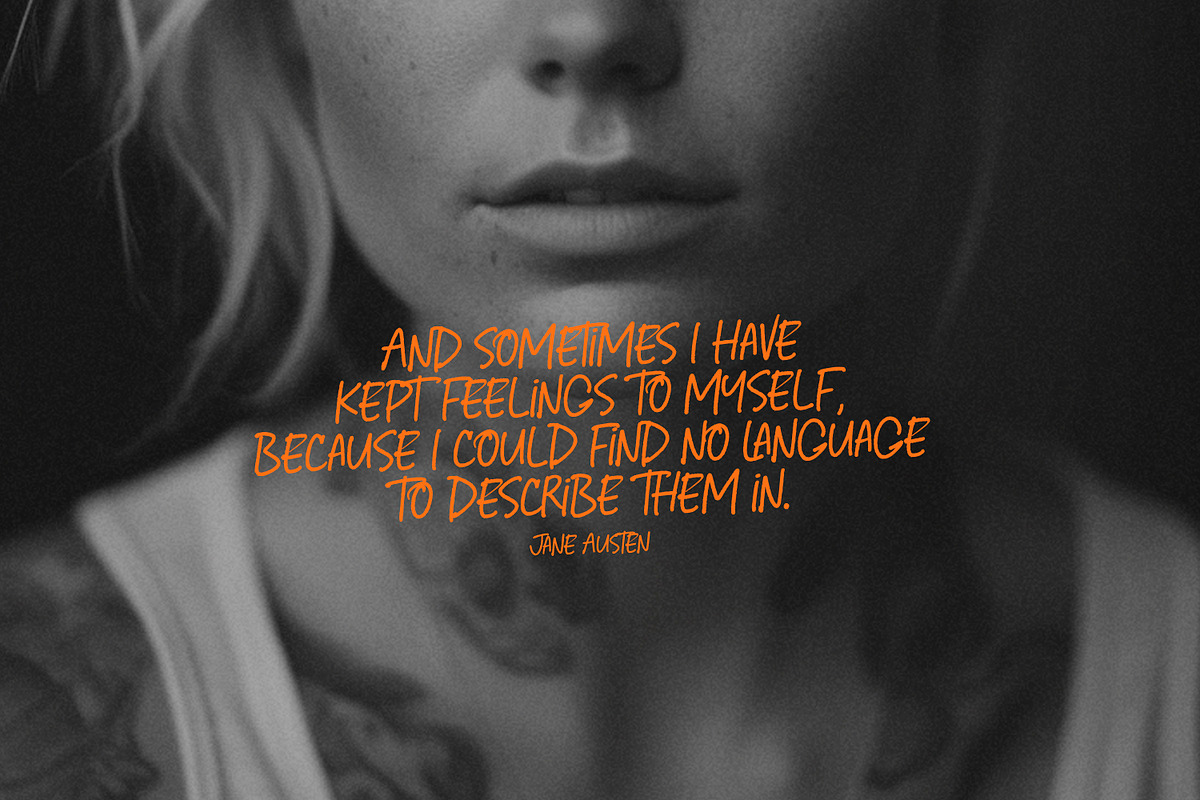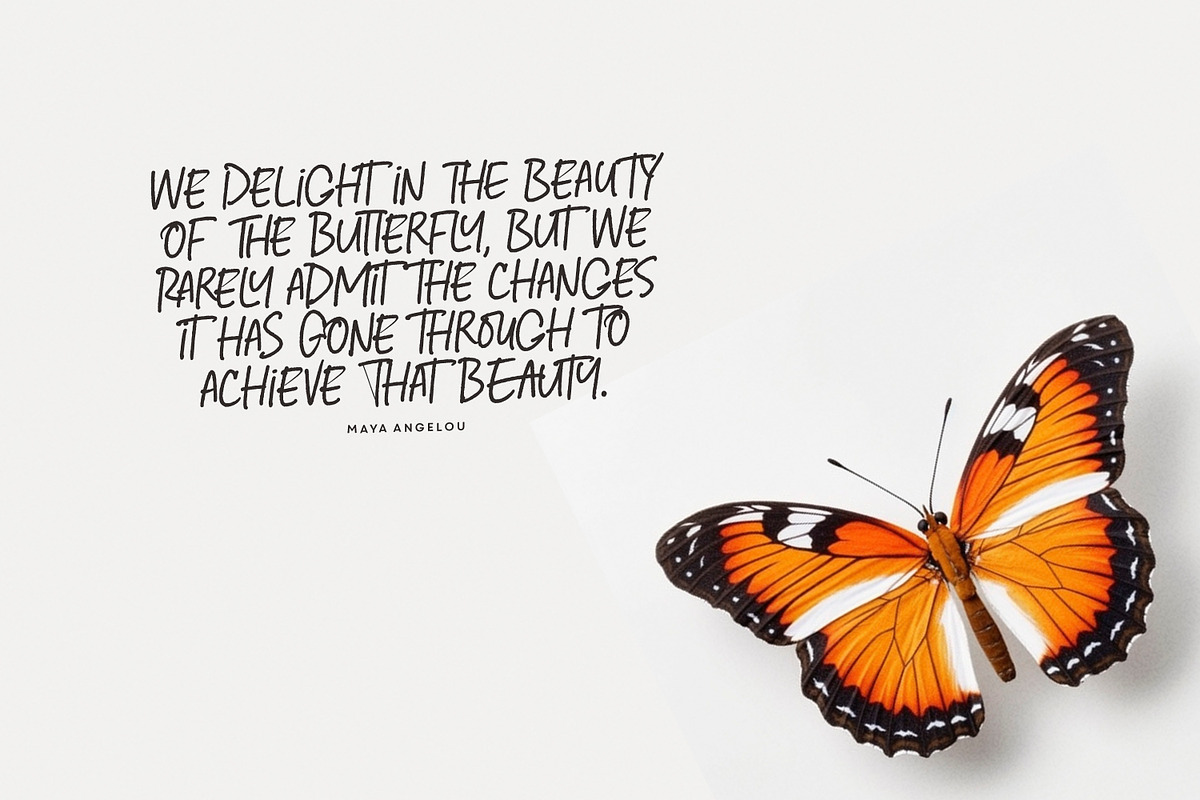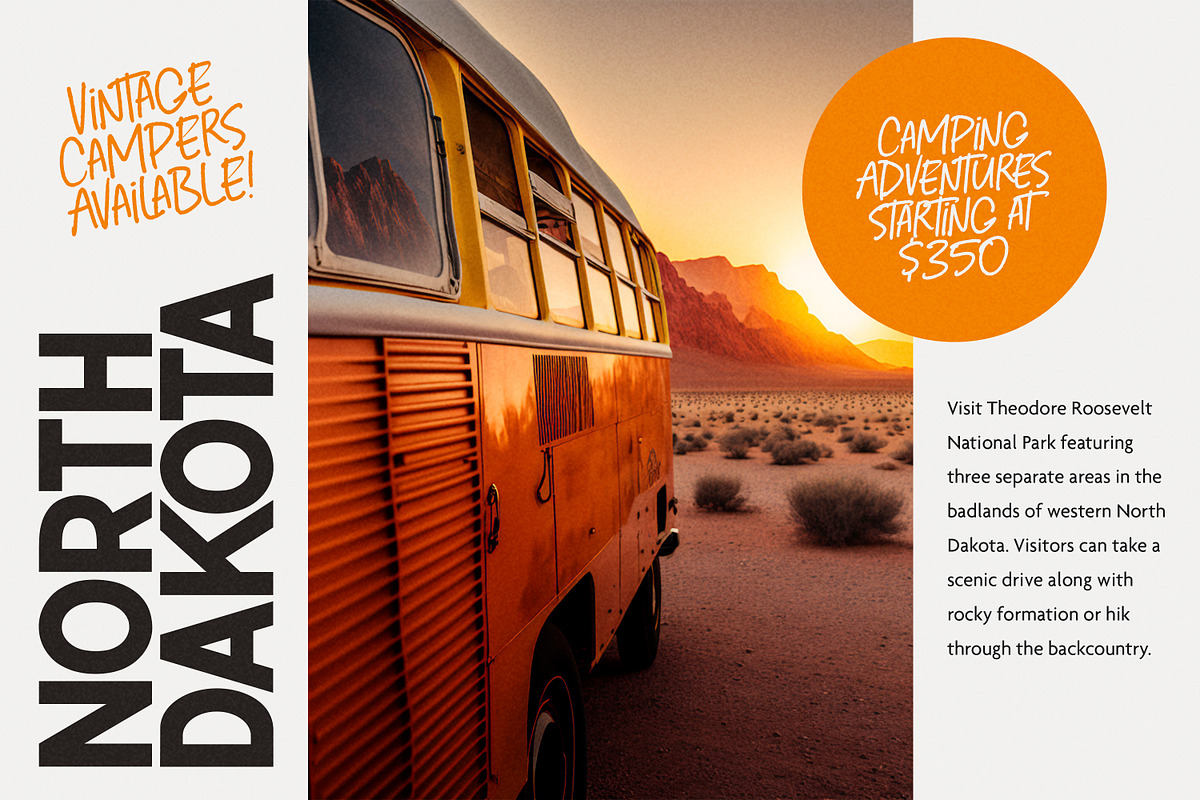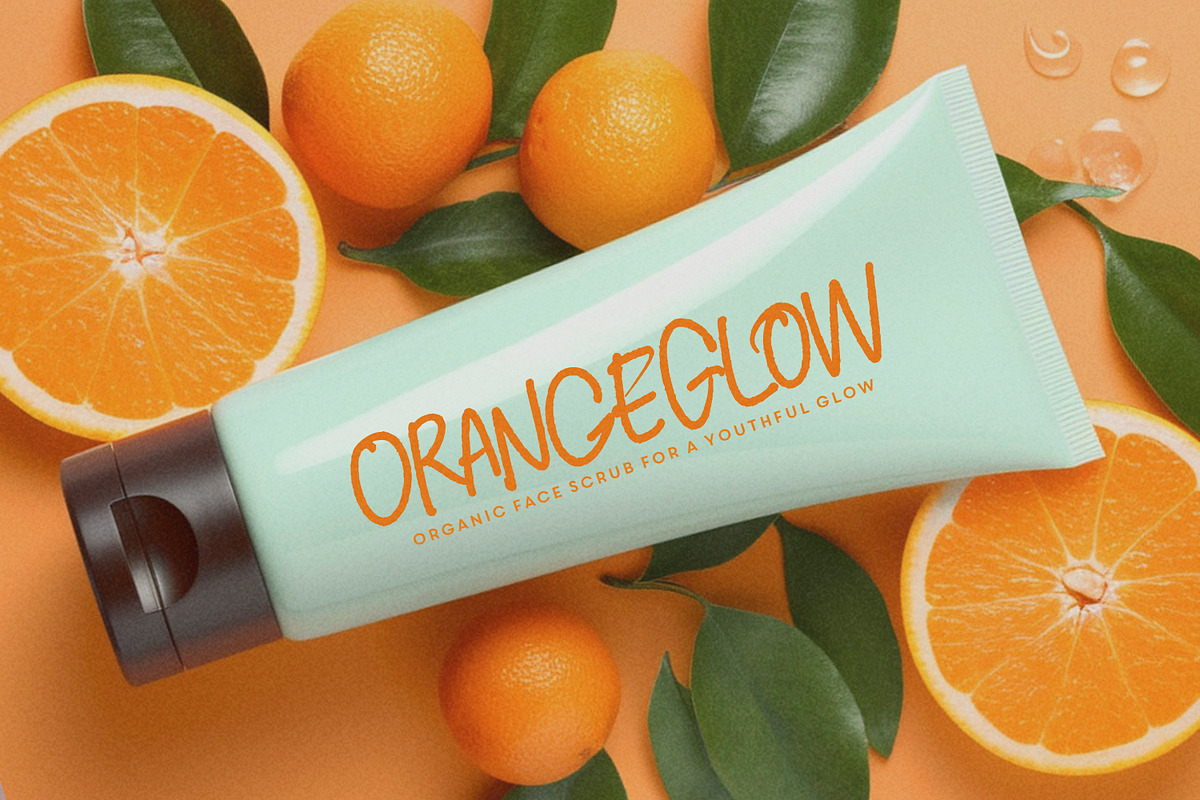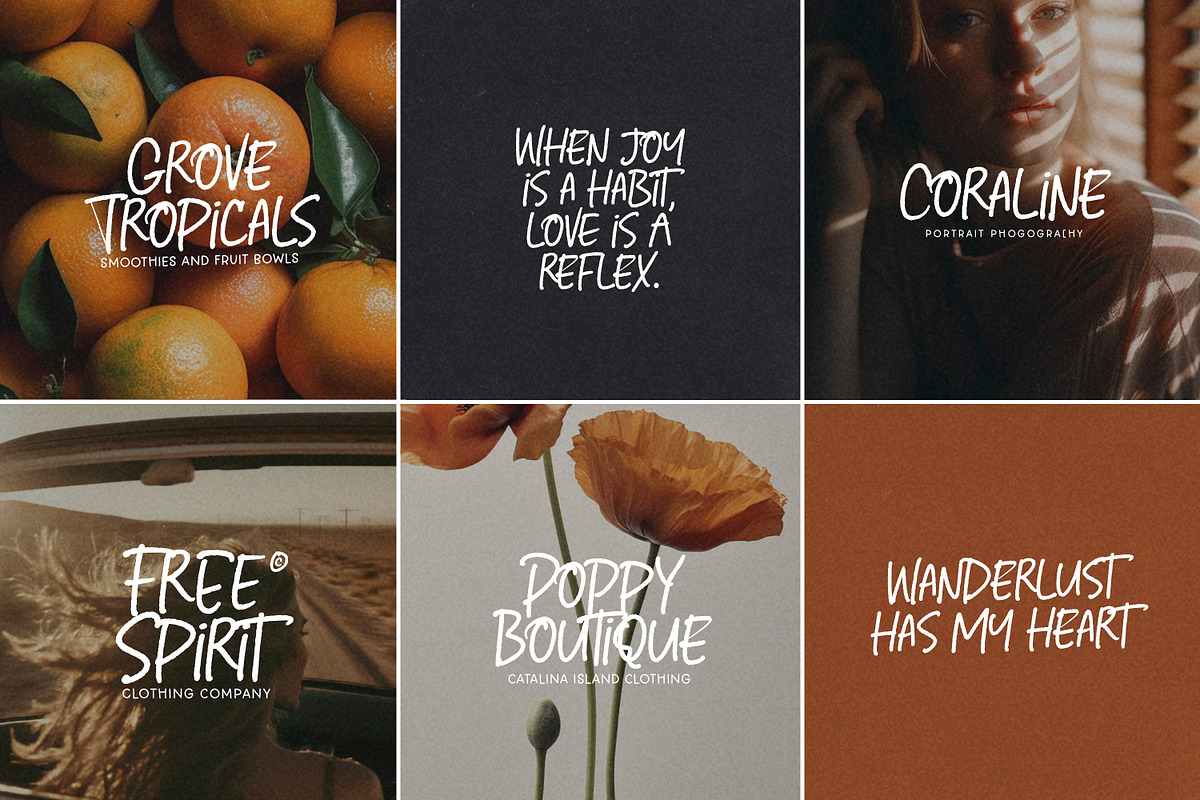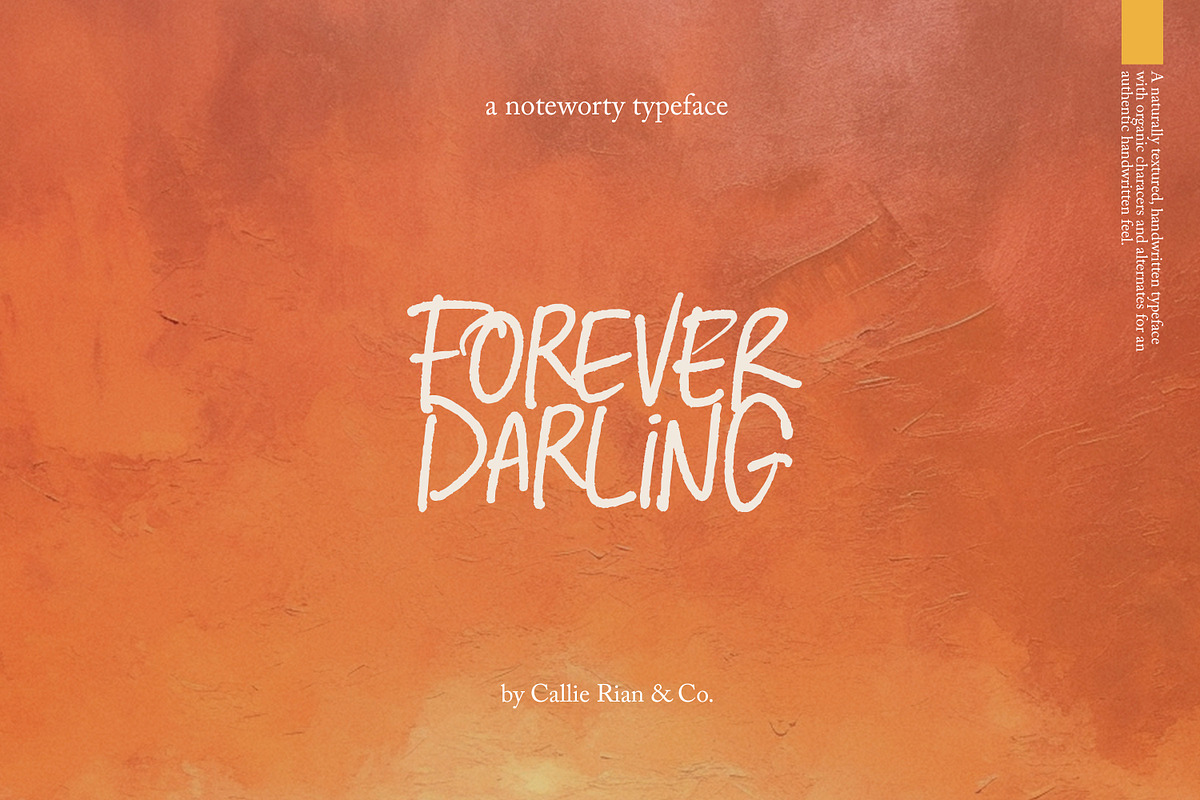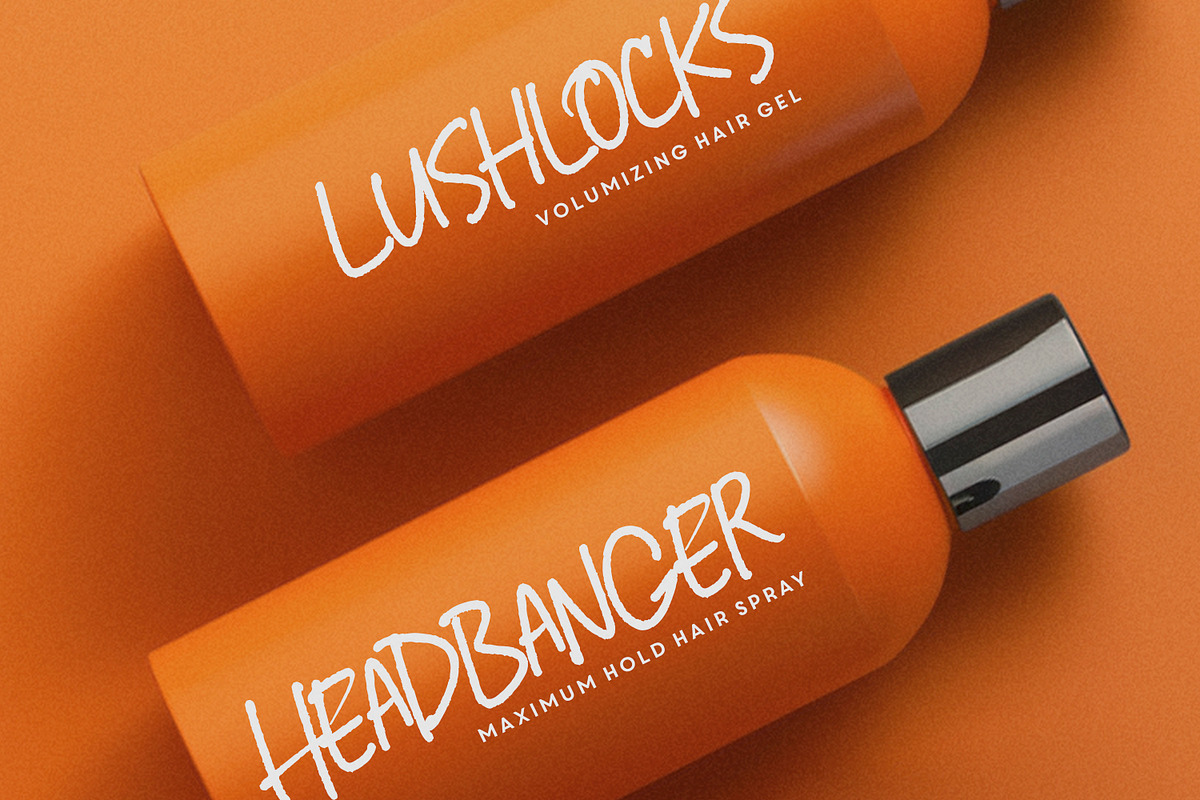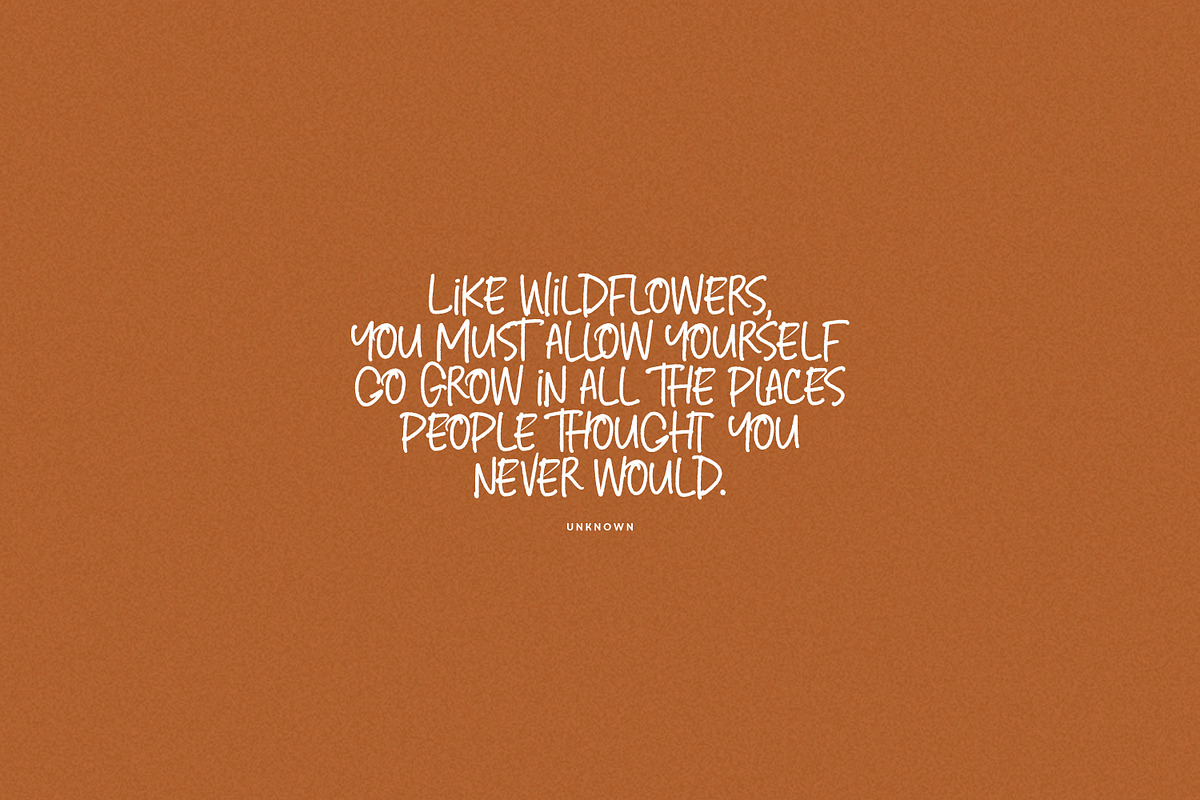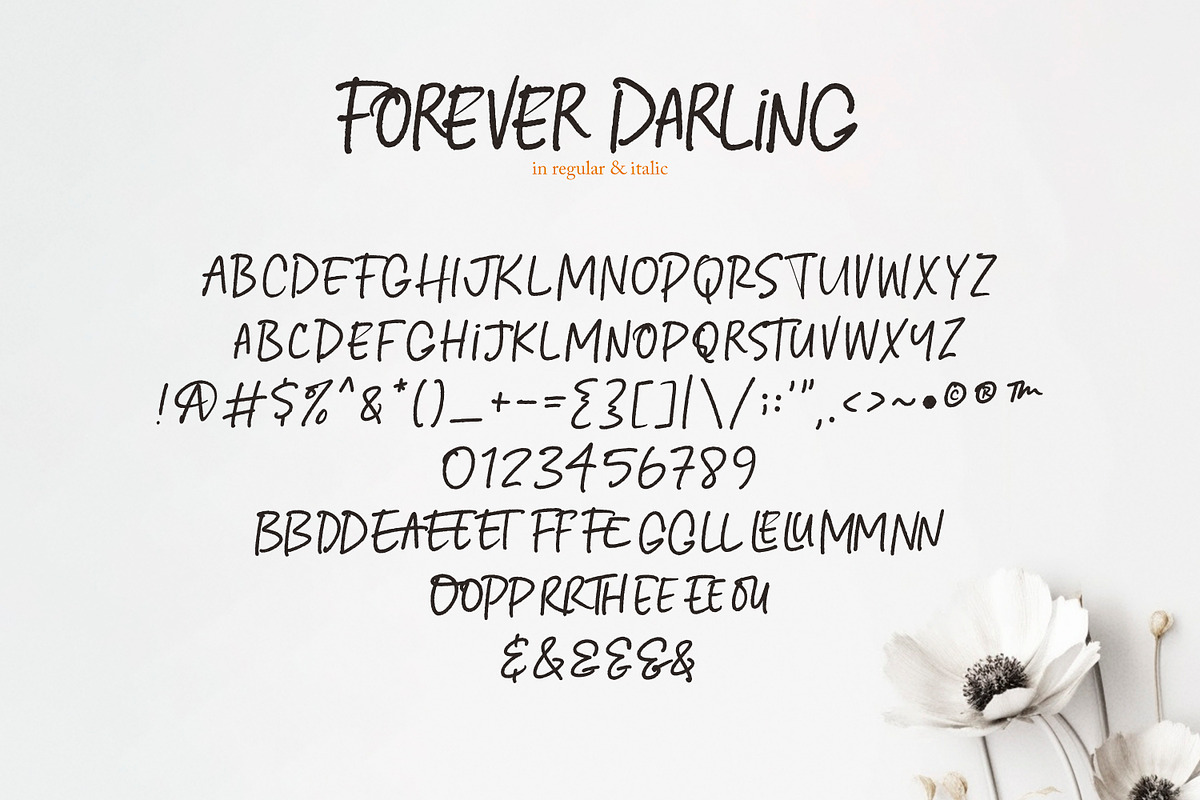
Forever Darling Handwriting Type
Introducing Forever Darling, a noteworthy typeface designed to look like real, organic handwriting! Use this pretty little font on packaging, editorials, subtext, quotes and loads more!
- Please Note this font is handwritten and textured. It won’t do well with a Cricut or Silhouette machine.